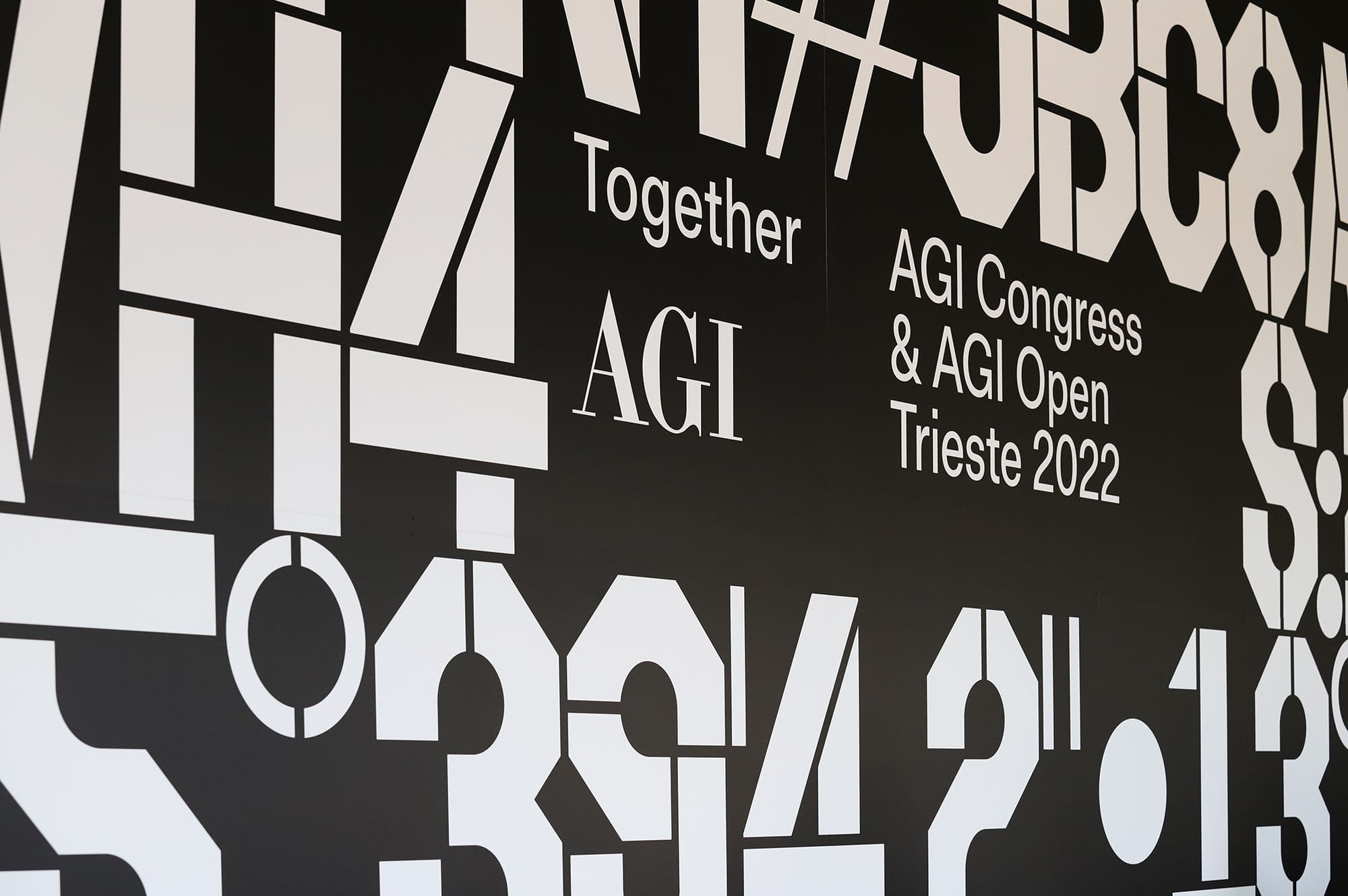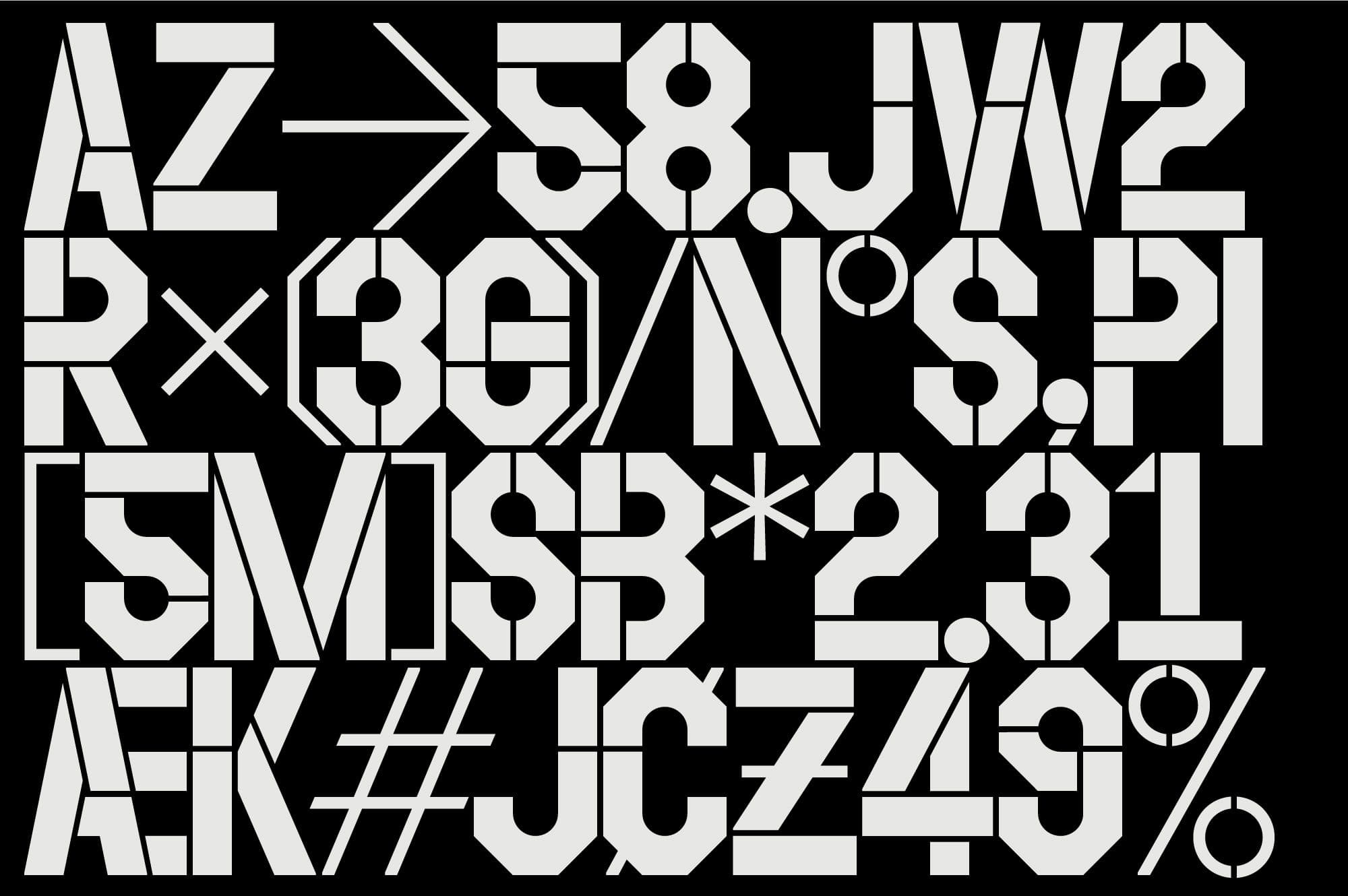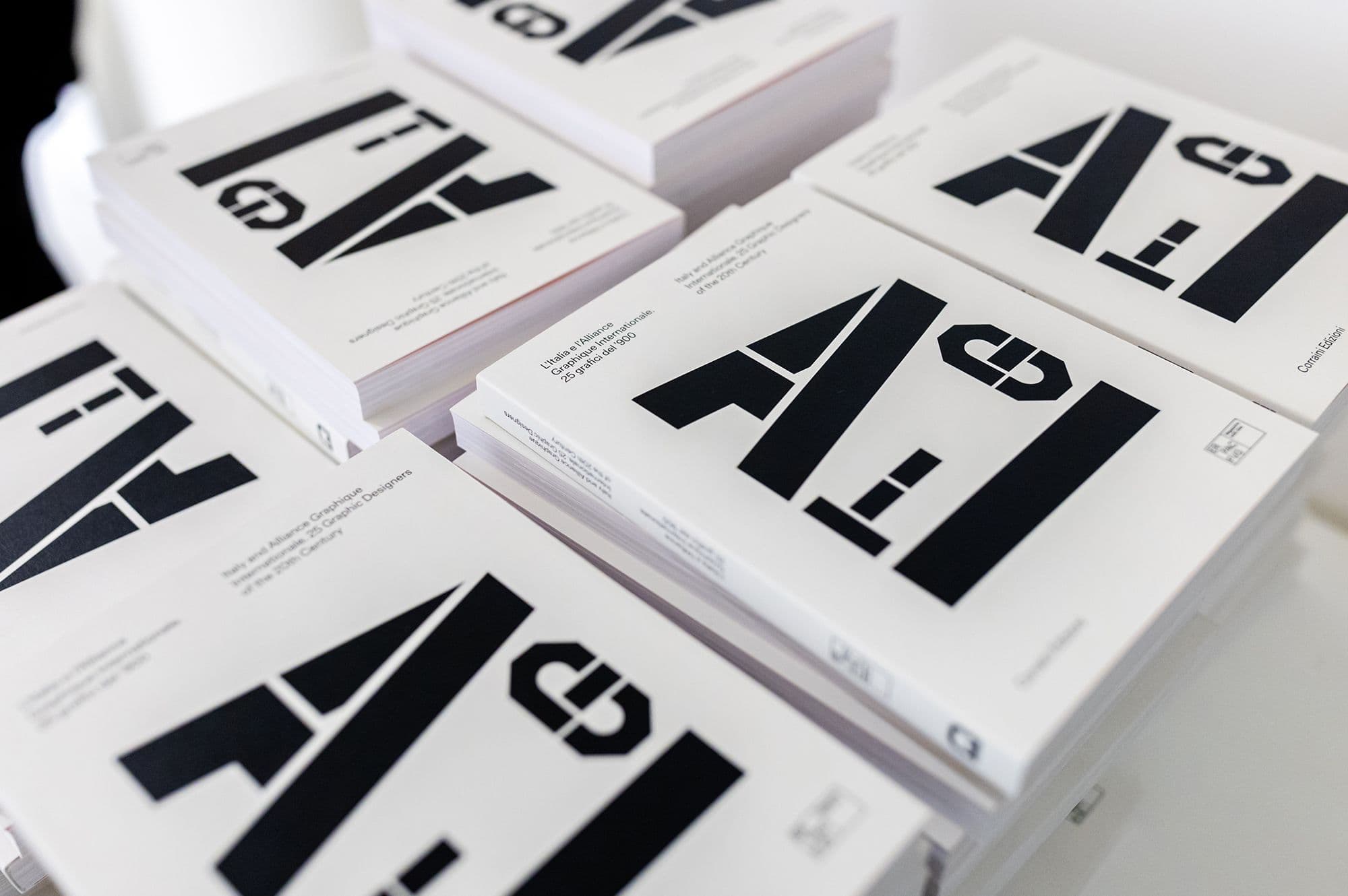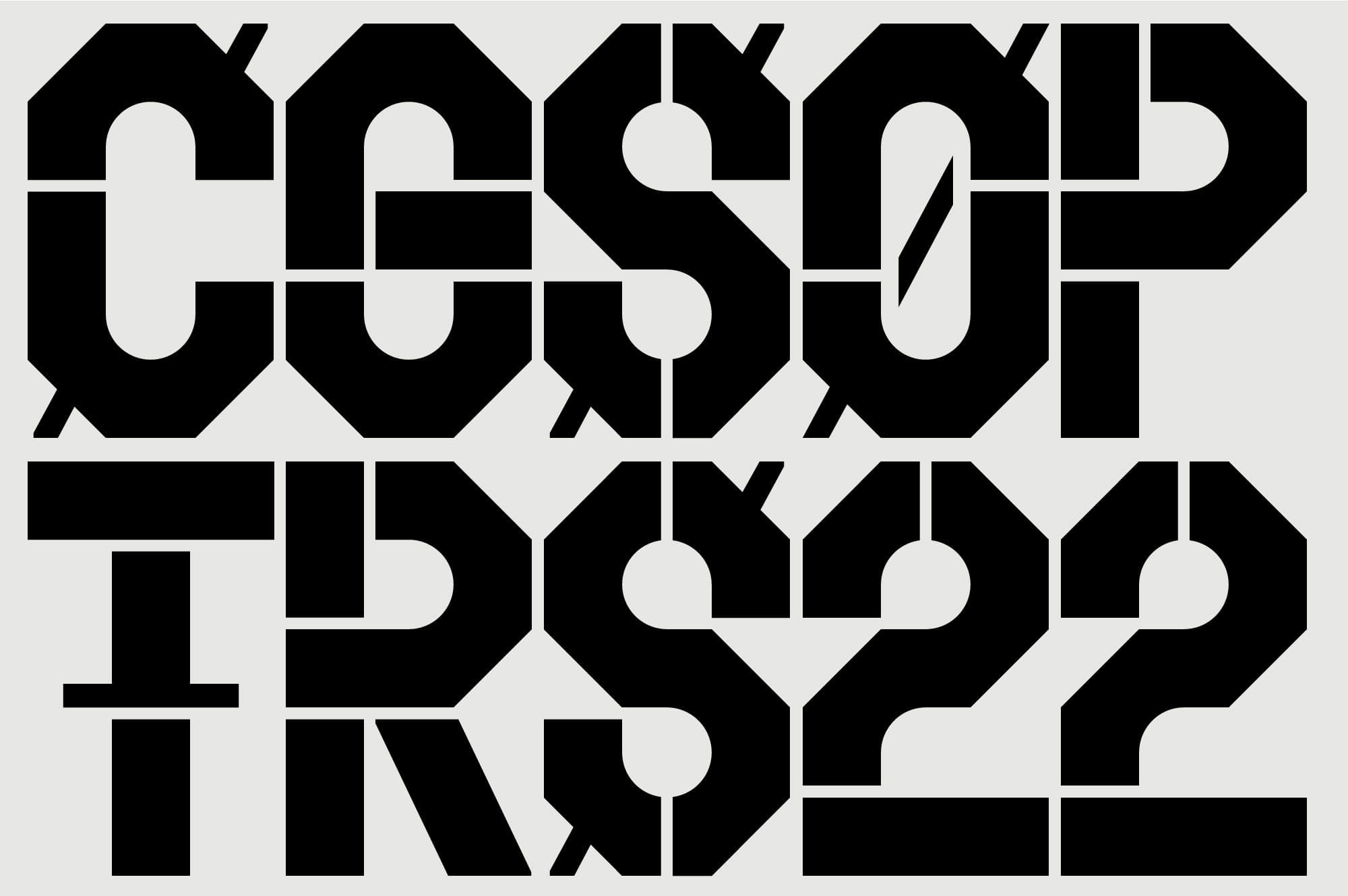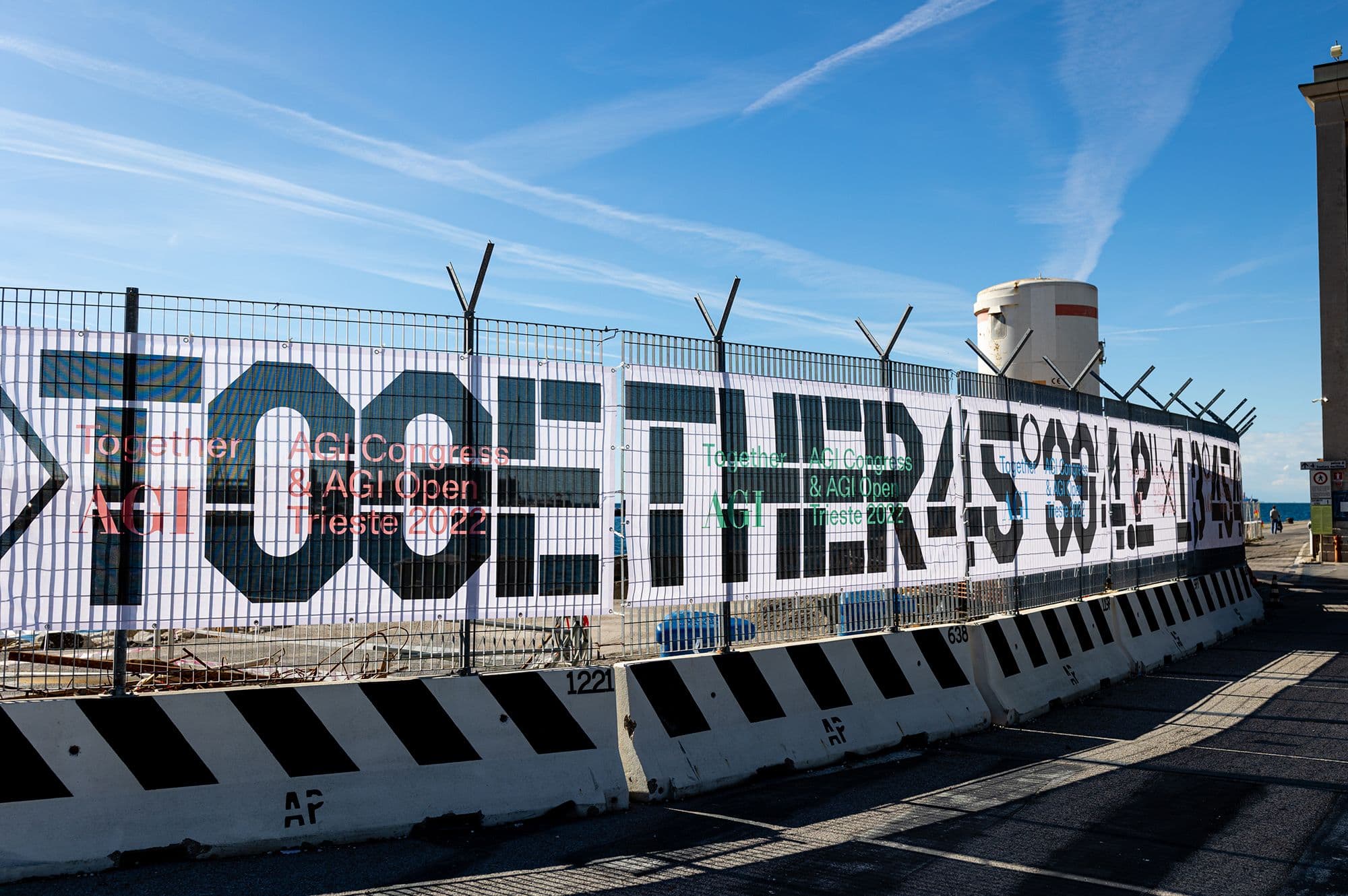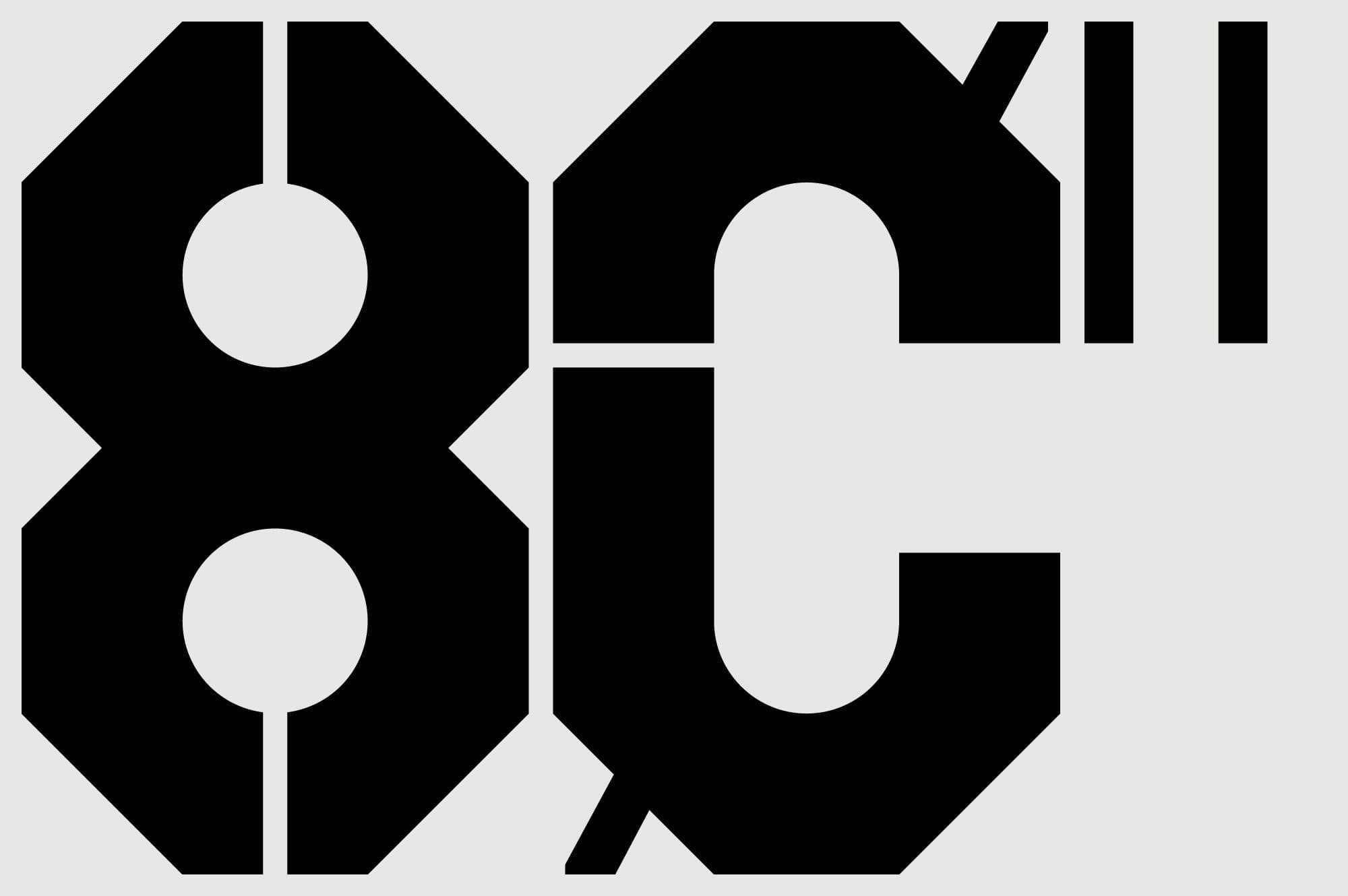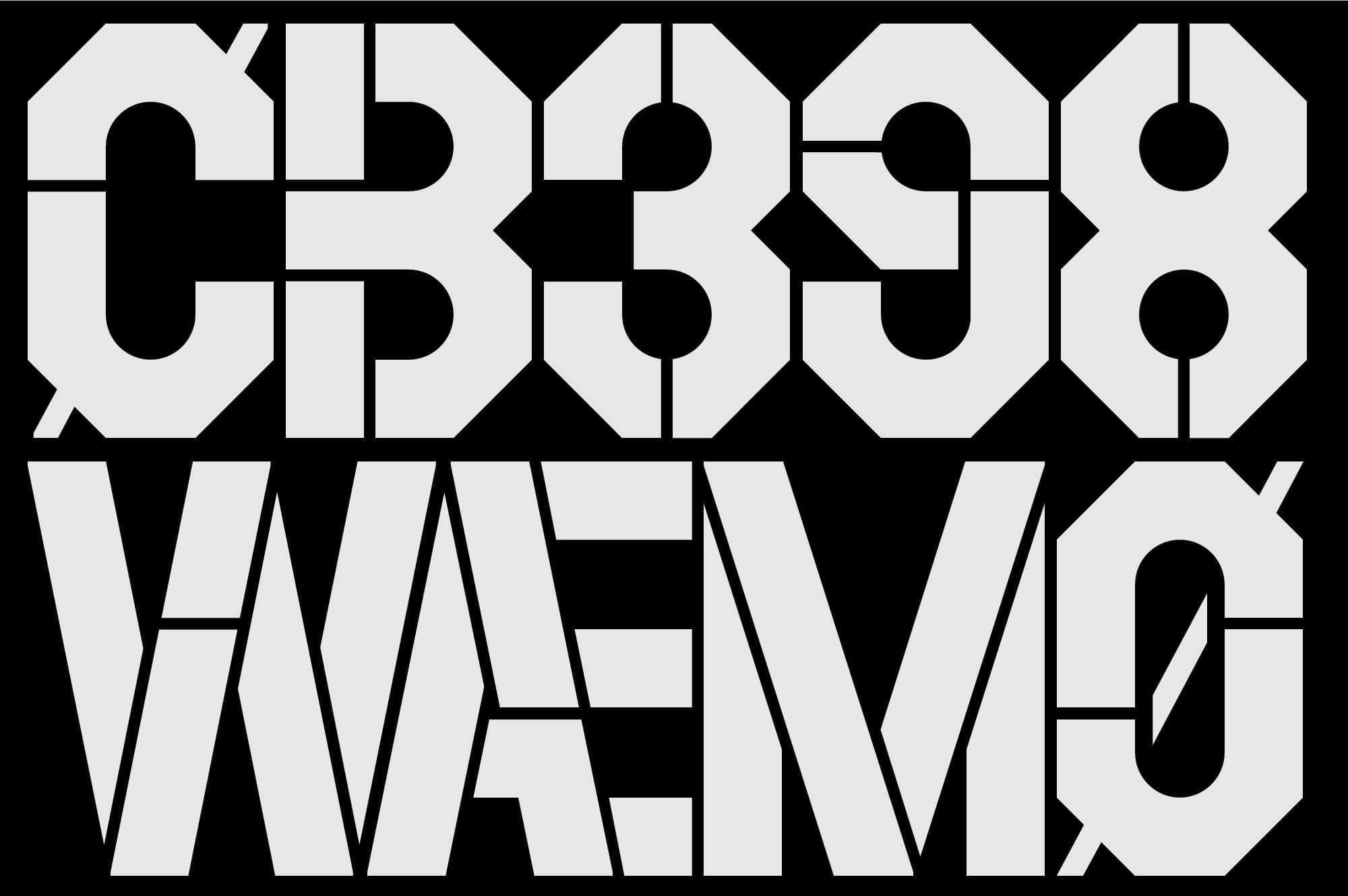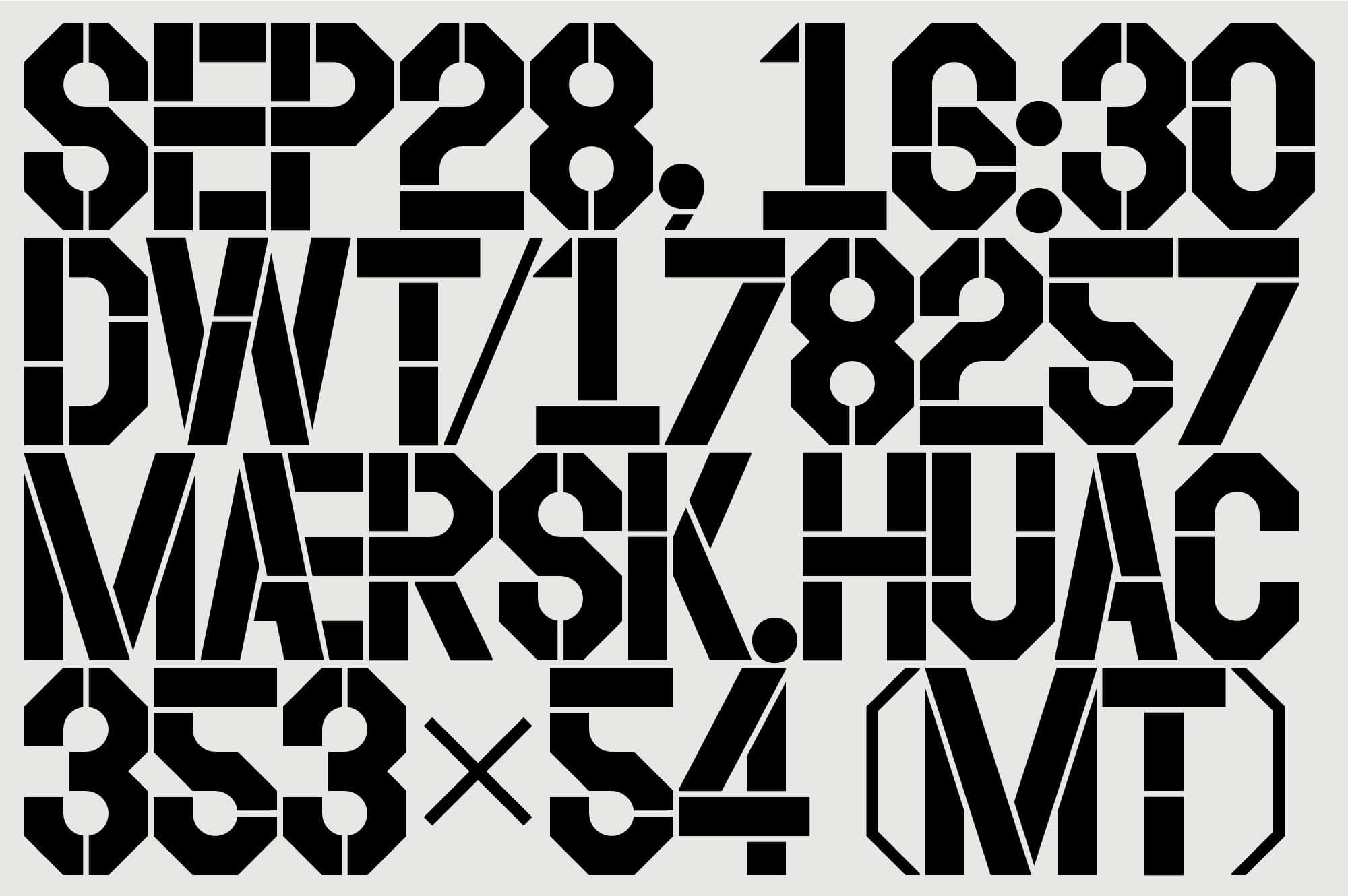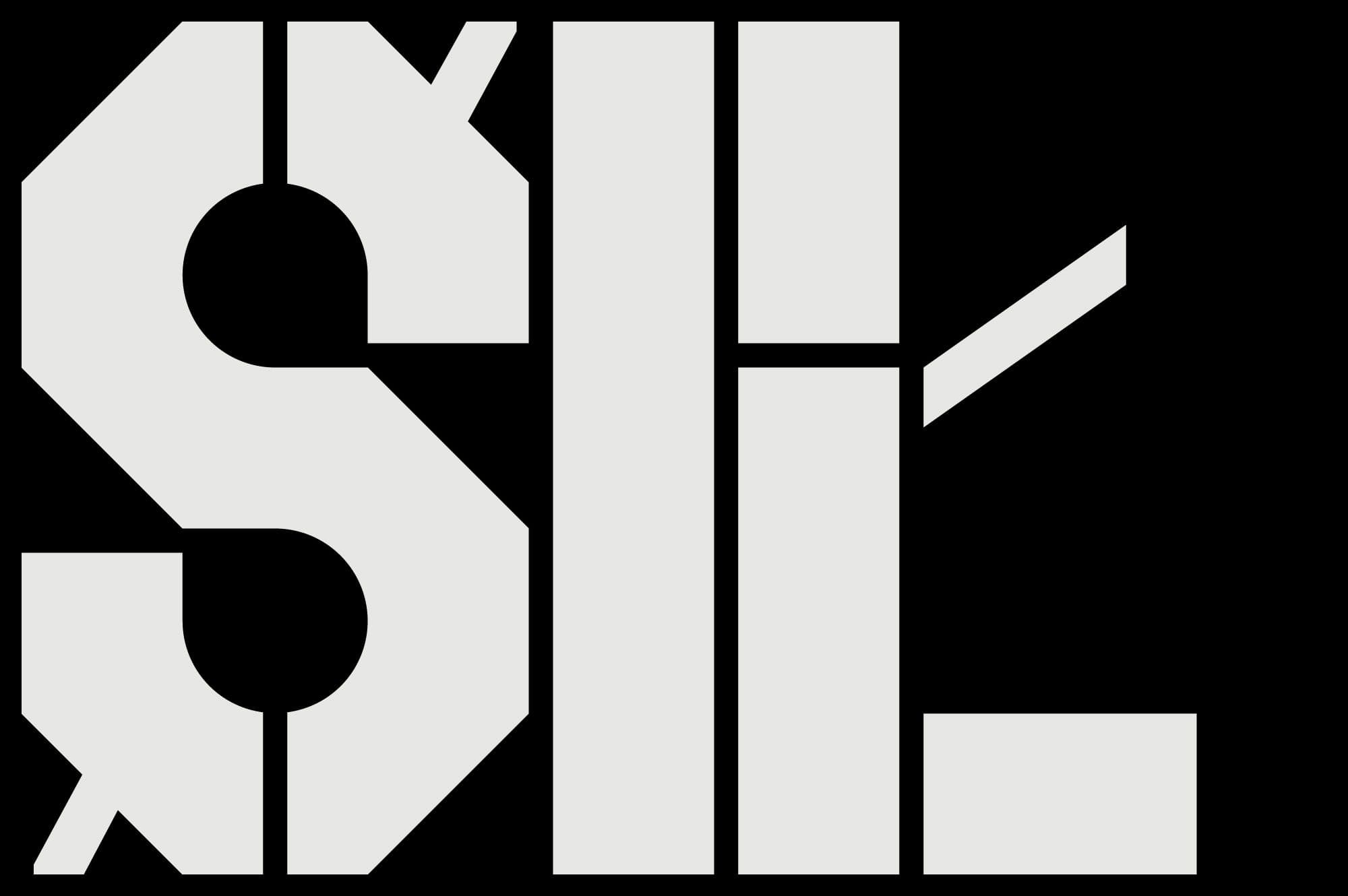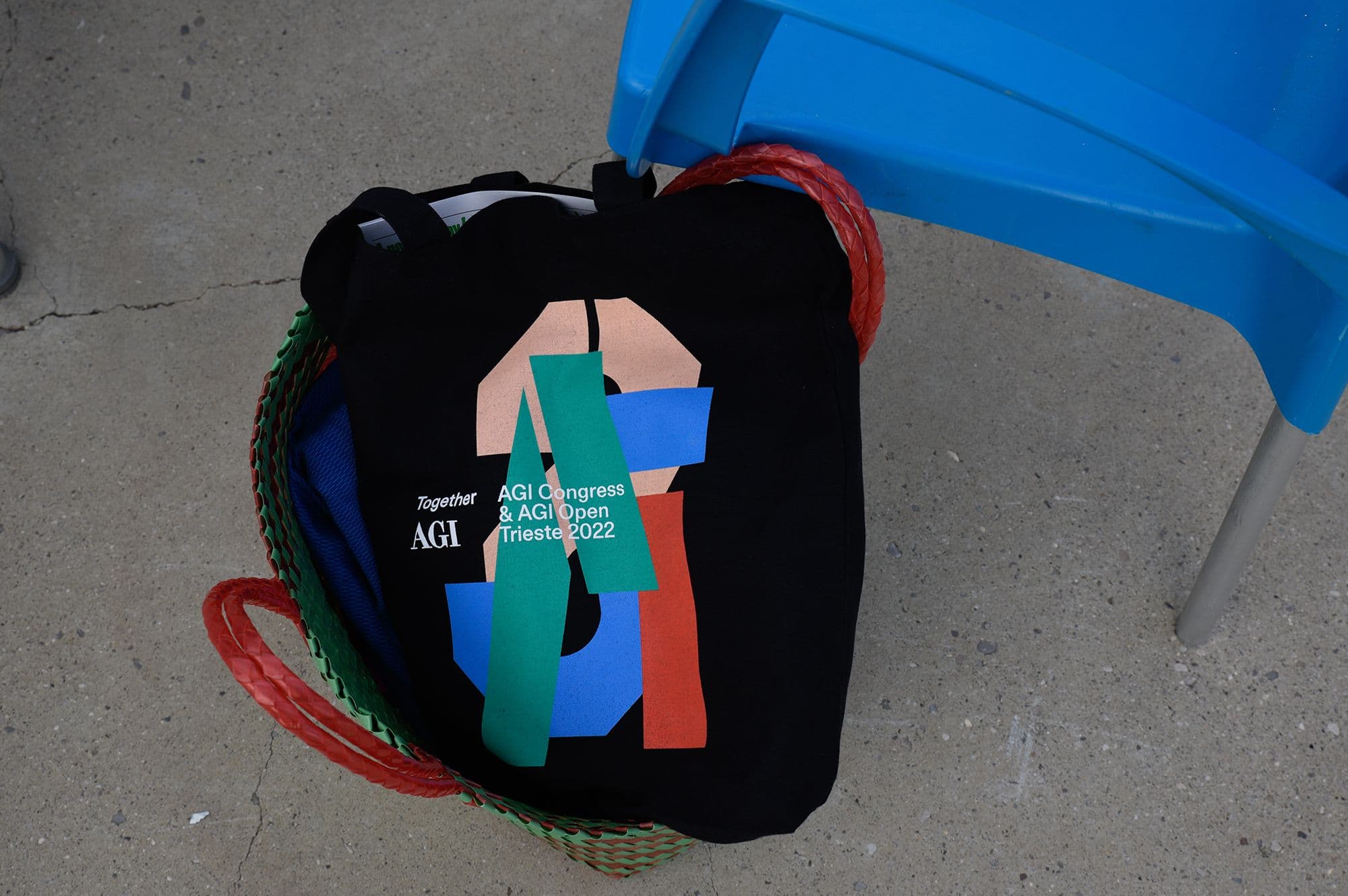
FT Together was originally conceived as the corporate typeface for the identity of the 2022 AGI Congress in Trieste, a port city in northeastern Italy. Inspired by the stencil lettering found on port signage, used to mark shipping containers and cargo vessels, the typeface translates that industrial aesthetic into a crafted typographic system. Its octagonal structure and the careful design of its stencil cuts give it a distinctive, functional presence, making it particularly effective for titles and short texts. The typeface is uppercase-only and available in a single weight.